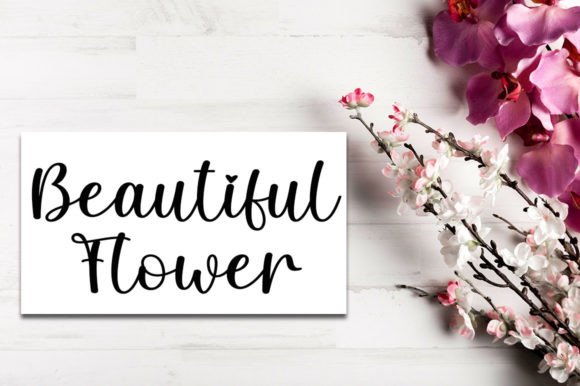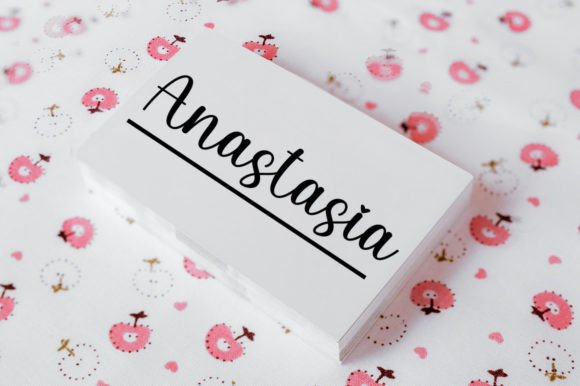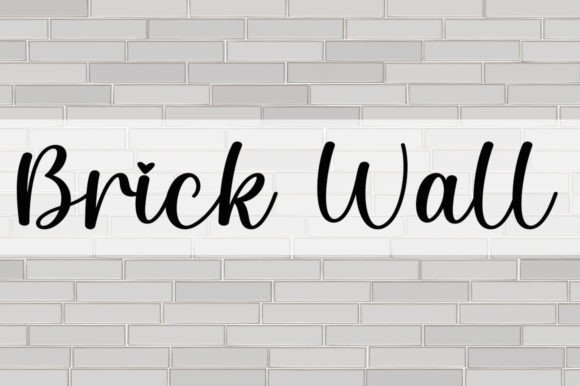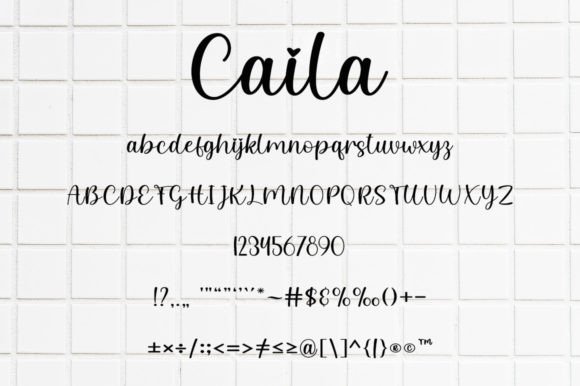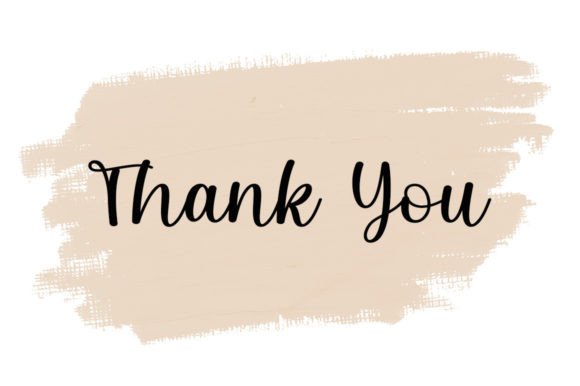
Caila Font: Elevate Your Designs with Elegance
In the world of typography, a font can make or break a design. For those seeking a touch of elegance and sophistication, the Caila Font is an excellent choice. This beautiful, flowing handwritten font is designed to add a refined flair to any project, making it perfect for designers and crafters looking to elevate their work.
The Characteristics of Caila Font
Caila Font is distinguished by its elegant touch, characterized by flowing lines and a graceful appearance. This handwritten font is meticulously crafted to provide a sense of luxury and refinement, making it suitable for a variety of applications, from branding and advertising to packaging and digital media.
One of the standout features of Caila Font is its PUA (Private Use Area) encoding. This means that users can easily access all the glyphs and swashes, allowing for greater flexibility and creativity in design. With PUA encoding, designers can seamlessly incorporate the various elements of the font into their work, creating unique and visually appealing compositions.
Why Choose Caila Font?
There are several reasons why Caila Font stands out from the crowd:
- Elegant Design: Caila Font boasts an elegant and refined design, perfect for creating sophisticated and eye-catching visuals.
- Versatility: This font is highly versatile, making it suitable for a wide range of projects, from digital media to print materials.
- Easy to Use: With PUA encoding, accessing the various glyphs and swashes is straightforward, allowing designers to focus on the creative process.
- High-Quality: Caila Font is a high-quality font designed to deliver exceptional results, ensuring that your designs look professional and polished.
Applications of Caila Font
Caila Font’s versatility makes it an excellent choice for various design applications, including:
- Branding and Logo Design: Create a lasting impression with a custom logo or brand identity that exudes elegance and sophistication.
- Digital Media: Enhance your digital content, such as social media graphics, blog posts, and website headers, with the refined touch of Caila Font.
- Print Materials: Elevate your print designs, including brochures, flyers, and business cards, with the luxurious feel of this beautiful font.
- Crafting and DIY Projects: Add a personal touch to your crafting and DIY projects, such as handmade cards, invitations, and scrapbooking pages.
Tips for Using Caila Font
To get the most out of Caila Font, consider the following tips:
- Experiment with Swashes: Take advantage of the font’s swashes to add a unique touch to your designs.
- Mix and Match: Combine Caila Font with other fonts to create visually appealing contrasts and hierarchies.
- Pay Attention to Kerning: Ensure that your text is well-kerned to maintain a professional and polished appearance.
Caila Font is a beautiful, elegant handwritten font that can elevate your designs to new heights. With its PUA encoding and versatile design, it’s perfect for a wide range of applications. Whether you’re a designer, crafter, or DIY enthusiast, Caila Font is an excellent choice for adding a touch of sophistication and refinement to your work.